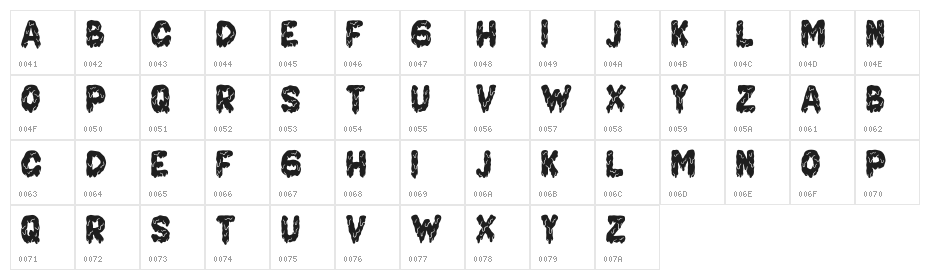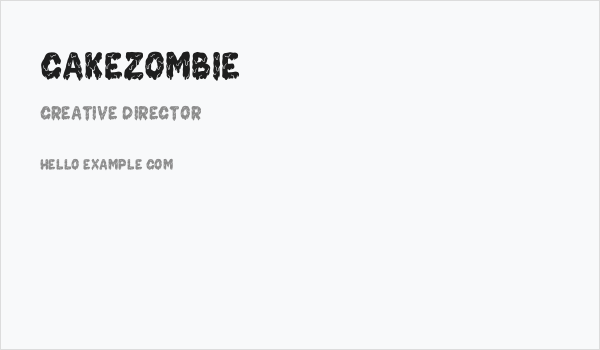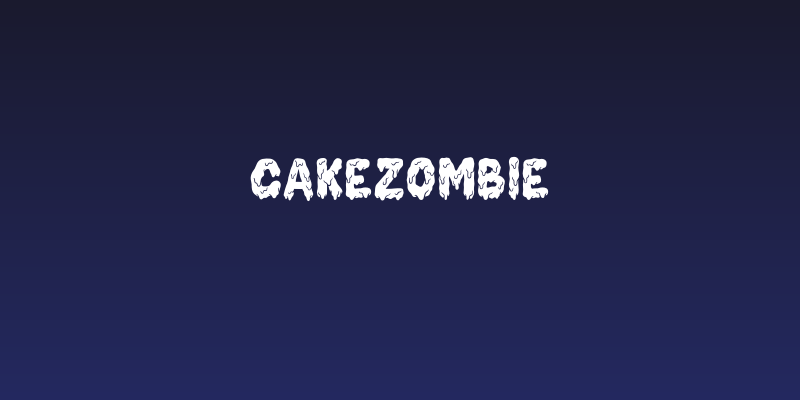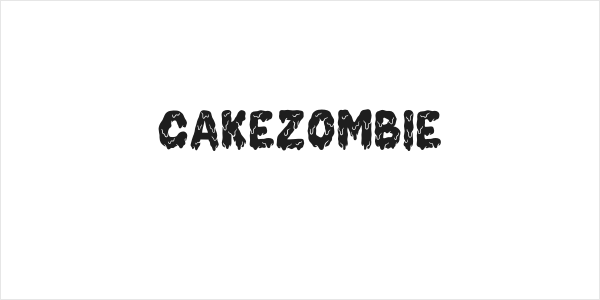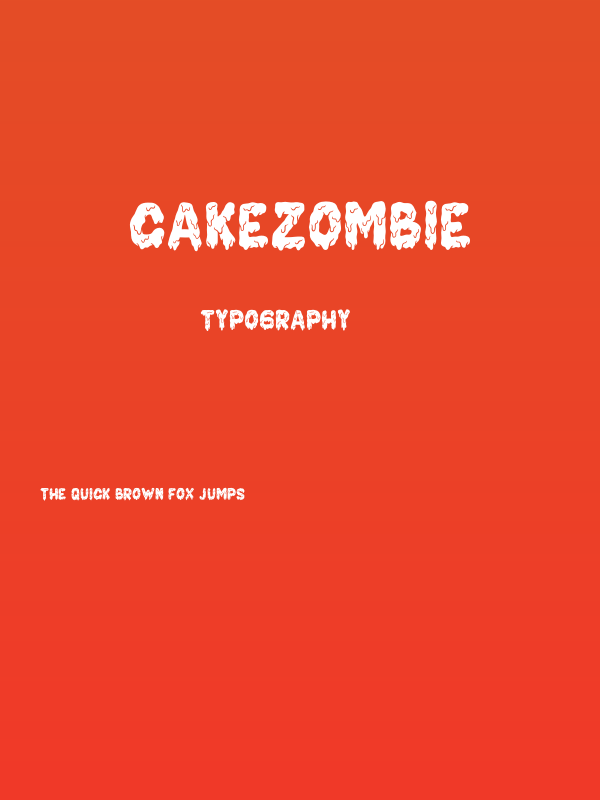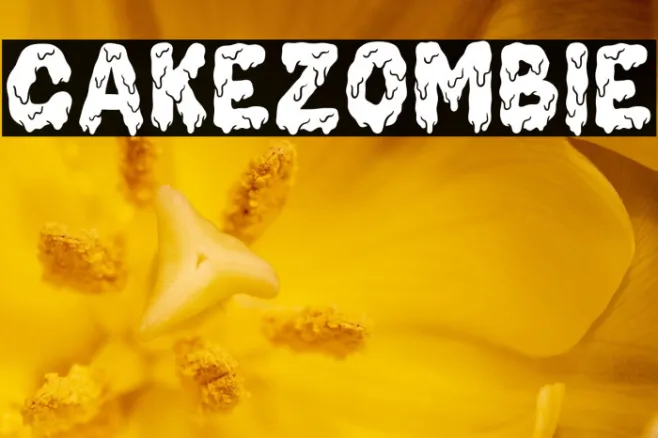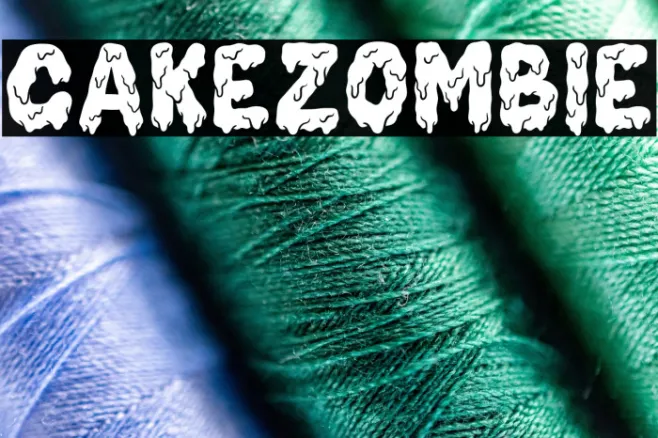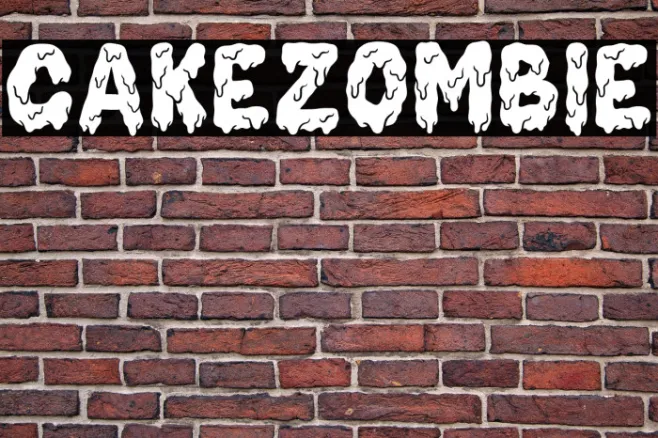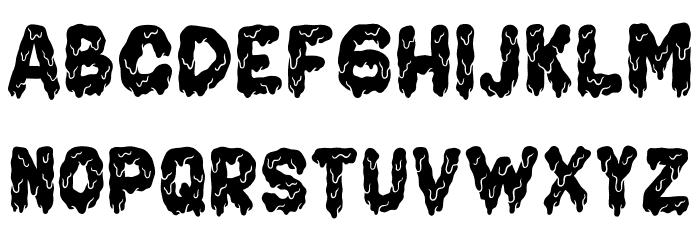
CakeZombie Font
CakeZombie Description
This font features a playful and eerie design, reminiscent of dripping slime or melting wax. Each character is bold and substantial, with irregular edges that give a sense of movement and fluidity. The uppercase letters are particularly striking, with their bold forms and unique, organic shapes. The lowercase letters maintain the same dripping effect, creating a cohesive look across the alphabet. Numbers and special characters are equally stylized, ensuring consistency throughout. This font is perfect for themes that require a spooky or fun aesthetic, such as Halloween events or horror-themed projects.
| Use Case | Headlines, Posters, Themed Events |
| Proposed Projects | Ideal for Halloween invitations, horror movie posters, themed party decorations, or any project requiring a fun, spooky touch. |